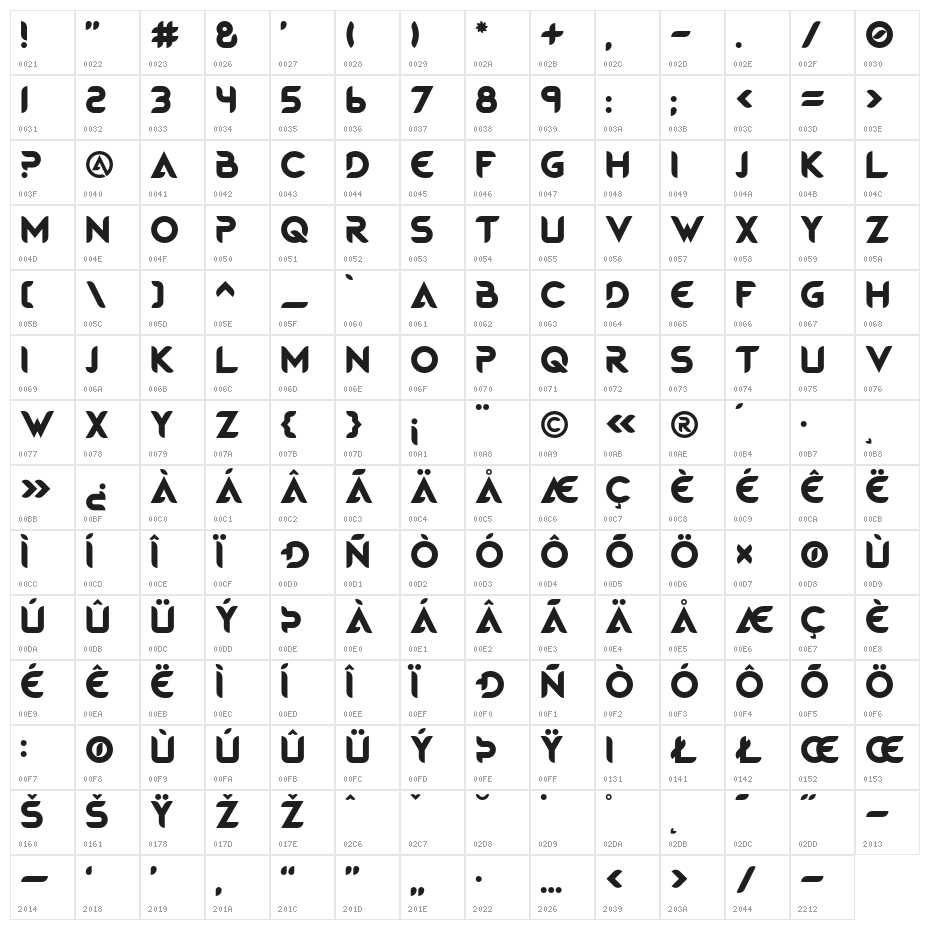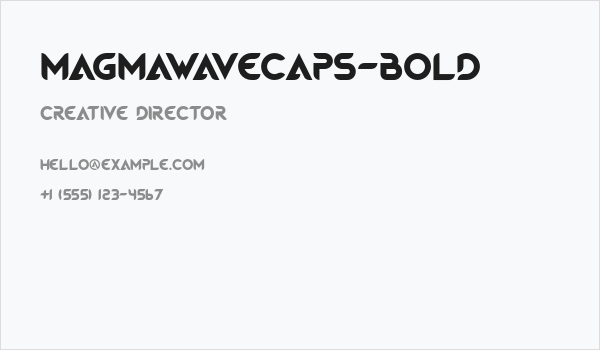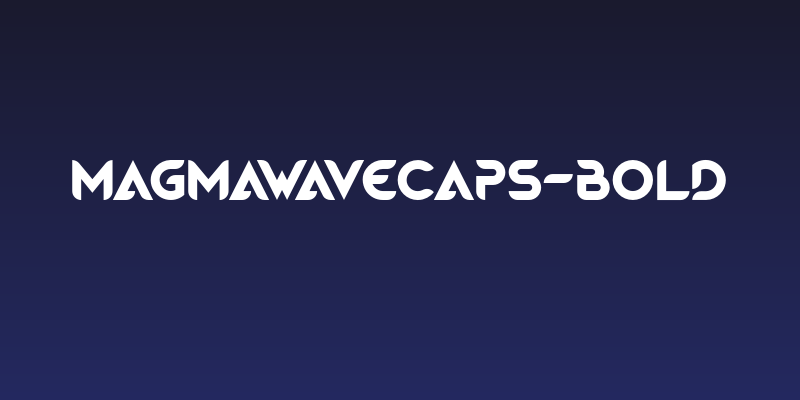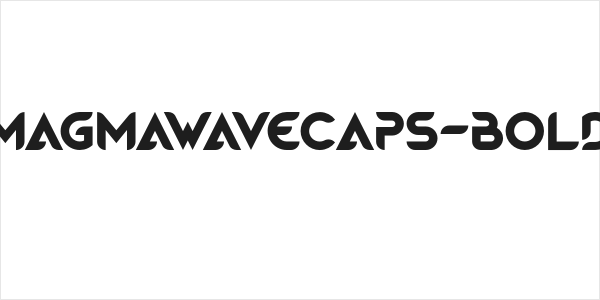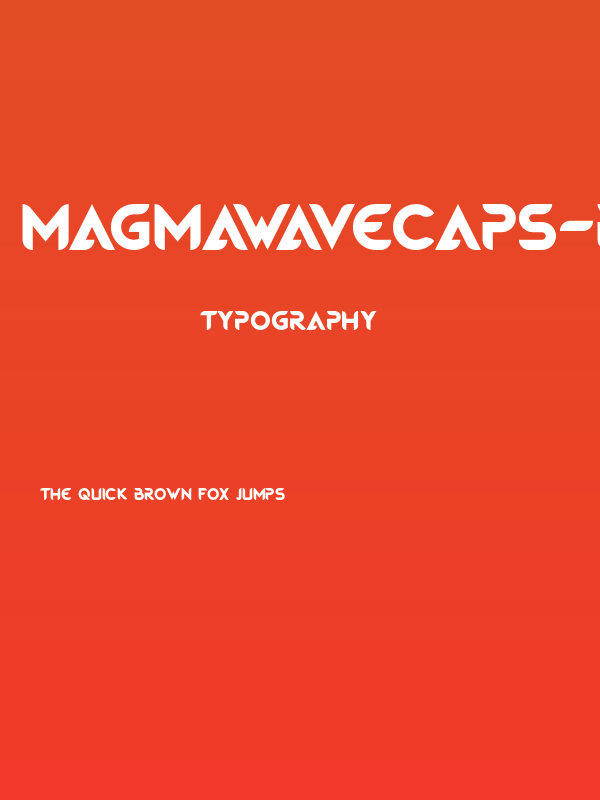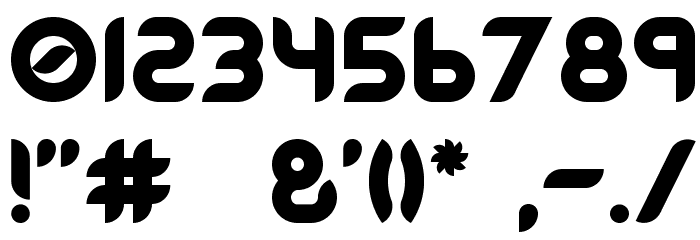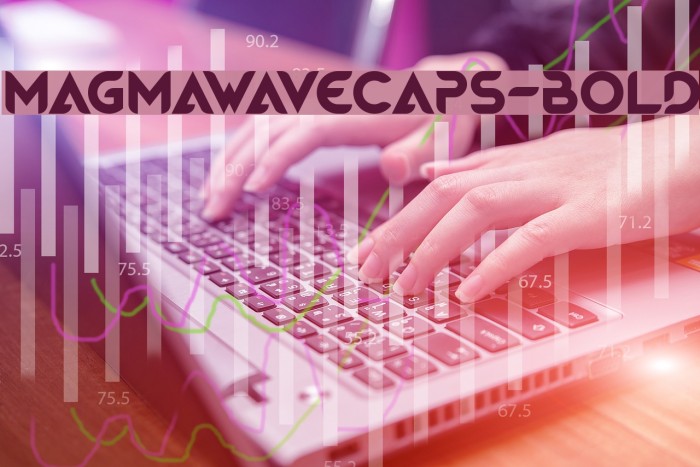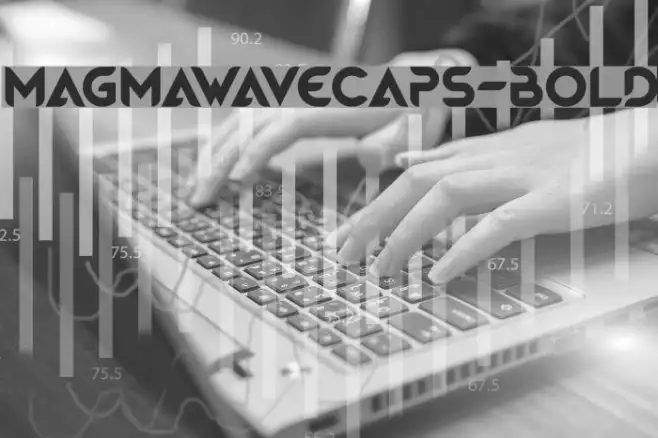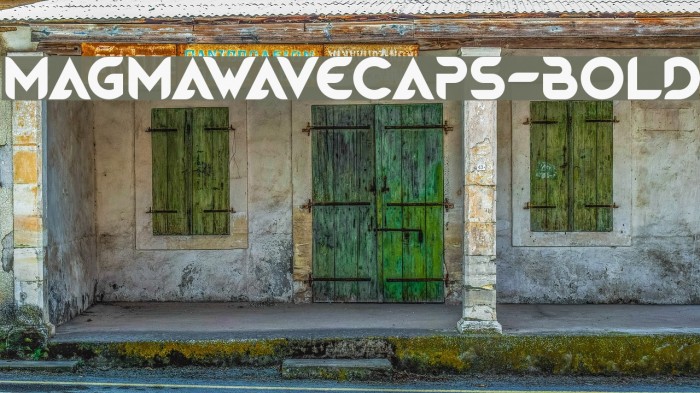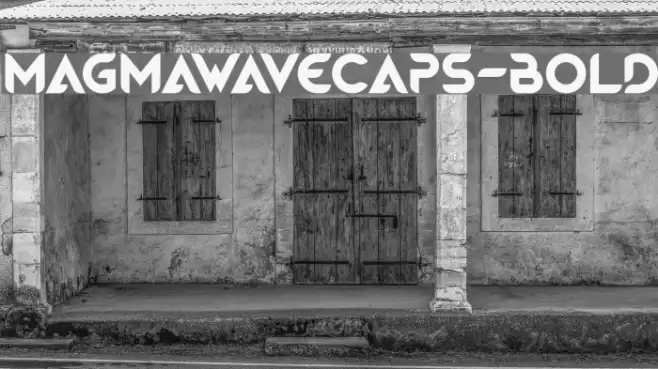
MagmawaveCaps-Bold Font
MagmawaveCaps-Bold Description
This font exhibits a bold and dynamic style with a futuristic flair. The characters are crafted with thick, uniform strokes that create a strong visual impact. Each letter features unique geometric cuts and angles, giving it a distinctive and modern appearance. The numbers and special characters maintain the same boldness and angular design, ensuring consistency throughout the typeface. This font is ideal for projects that require a striking and contemporary look, such as technology branding or sci-fi themed designs.
| Proposed Projects | Ideal for technology branding, sci-fi themed designs, video game titles, and modern posters. |